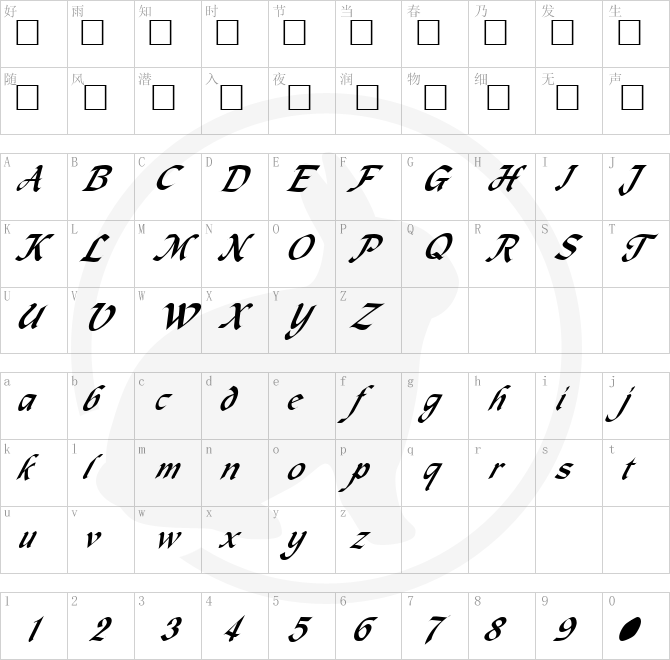
- Font Name:MacHumaine
MacHumaine-Italic.ttf is a very beautiful artistic font, MacHumaine-Italic.ttf is widely used in the design and printing of various books and pictures,MacHumaine-Italic.ttf has a strong visual impact,MacHumaine-Italic.ttf is a commonly used font in newspapers, magazines and books, and is used in posters, e-commerce Poster design, store design, logo design, font design and other fields.MacHumaine-Italic.